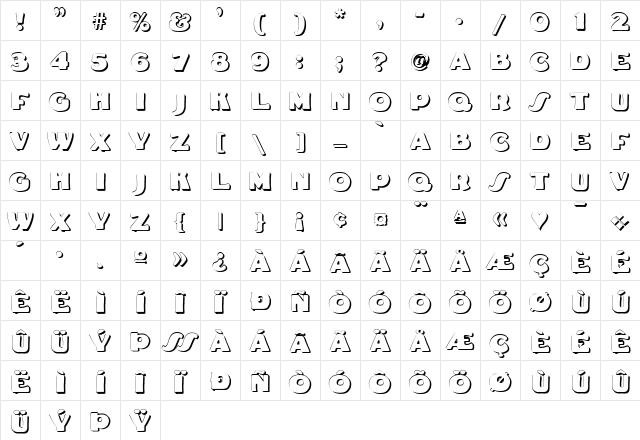
Fat Freddie Shadow Regular Font Preview
Fat Freddie Shadow Regular
Design Context for Fat Freddie Shadow Typeface
Fat Freddie Shadow brings ornamental detail and strong personality to headlines and identities, where visual impact matters more than quiet functionality.
Font Pairing: Pair with a clean neutral sans-serif for body copy to let Fat Freddie Shadow's character lead without overwhelming the composition.
Pro Tip: Use Fat Freddie Shadow exclusively at display sizes — it was designed to be seen, not read at length. Let a neutral companion handle body copy.